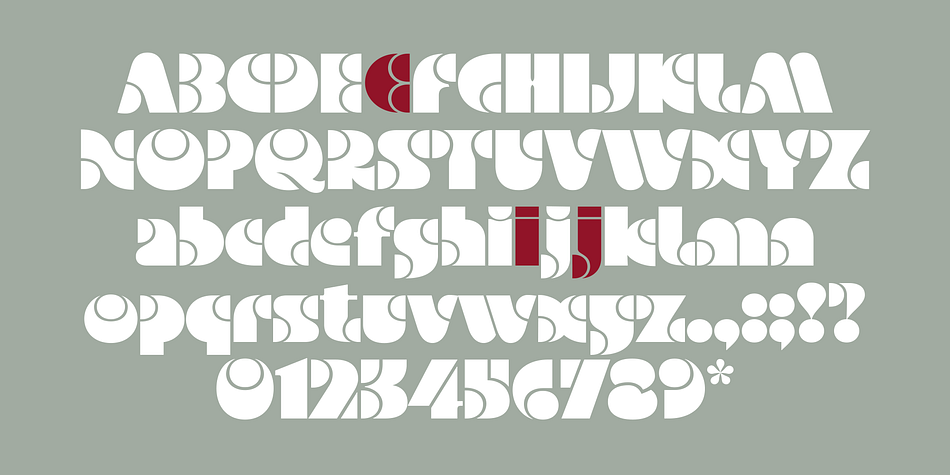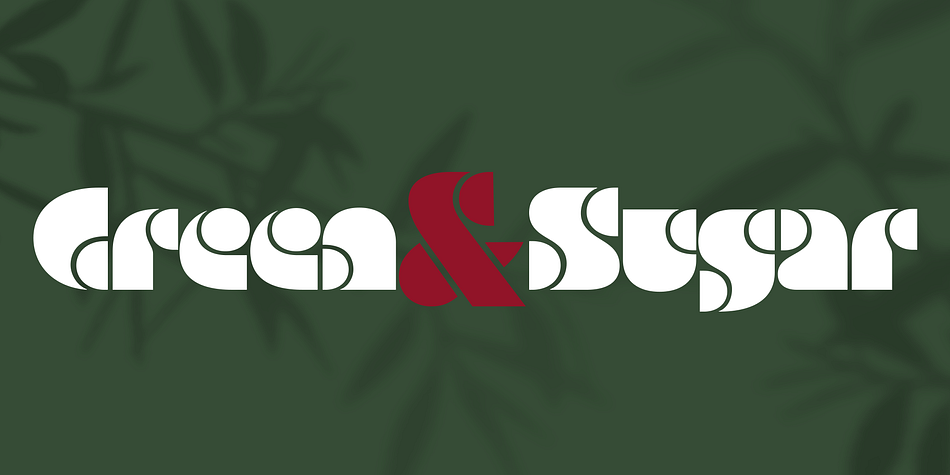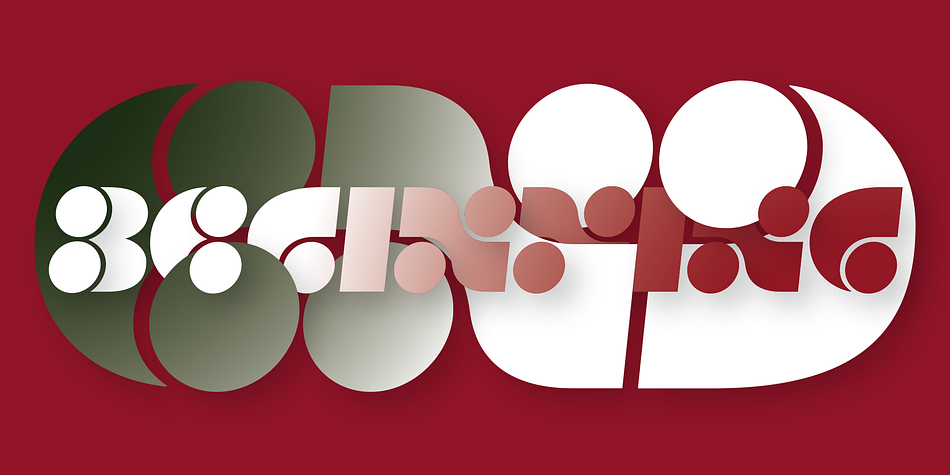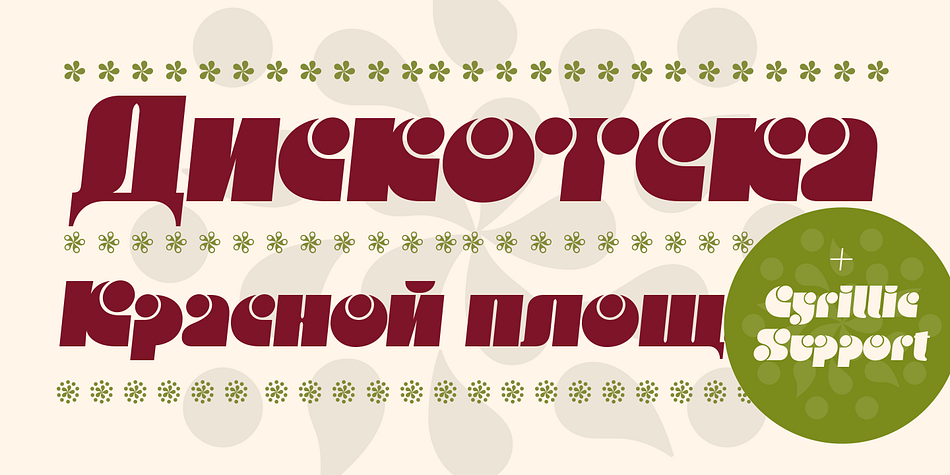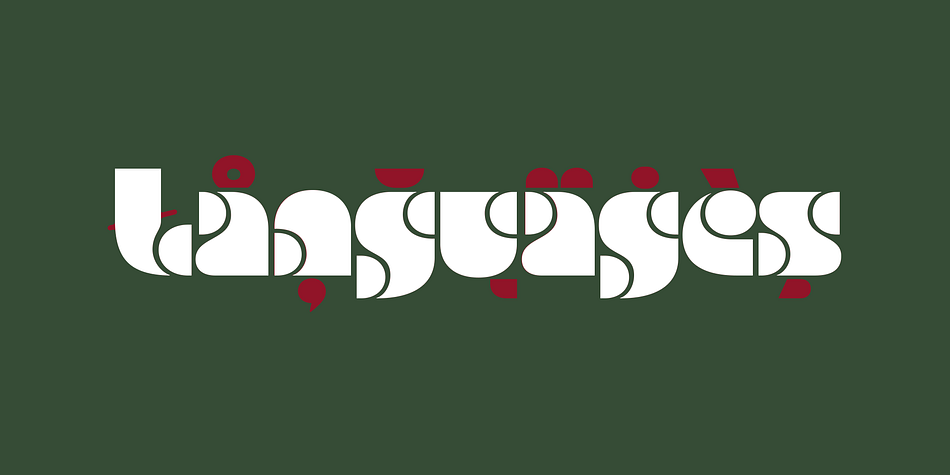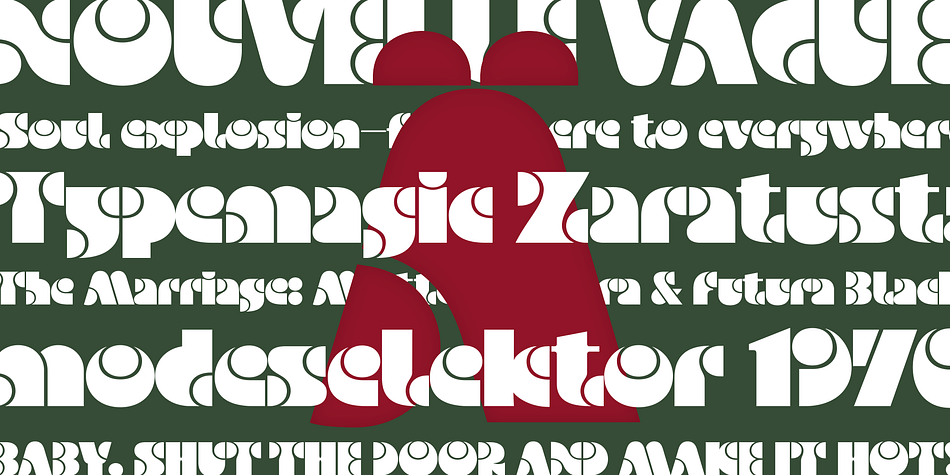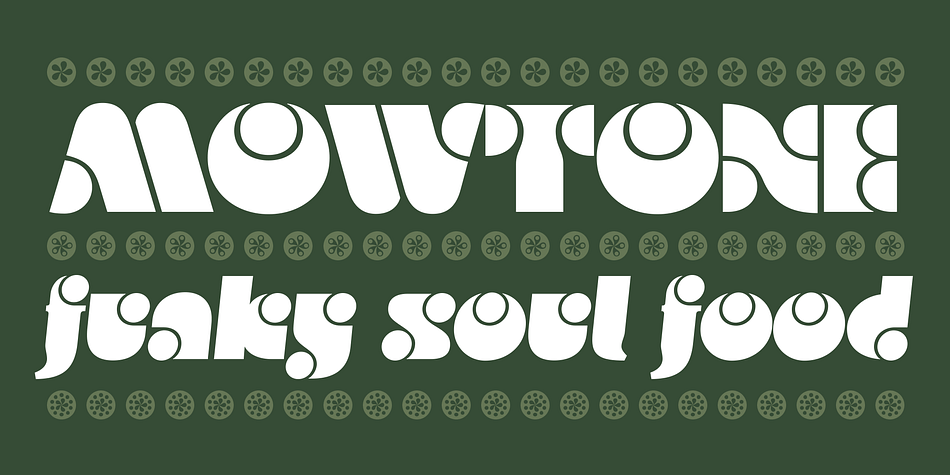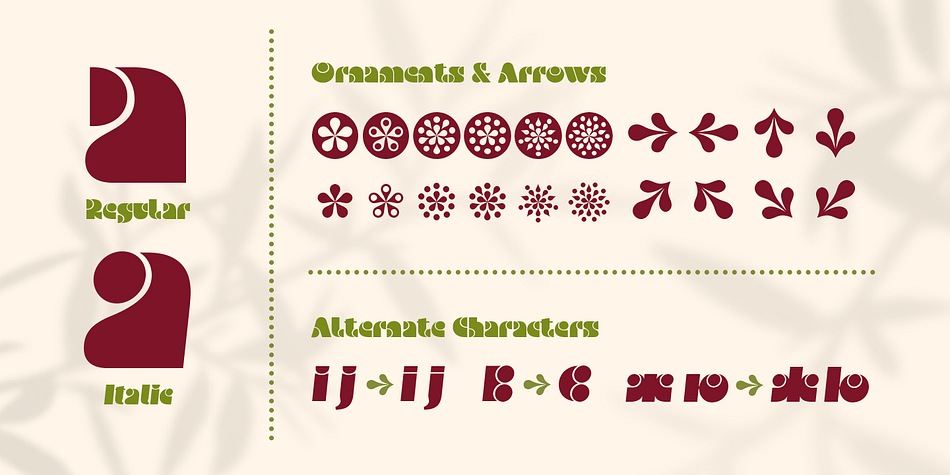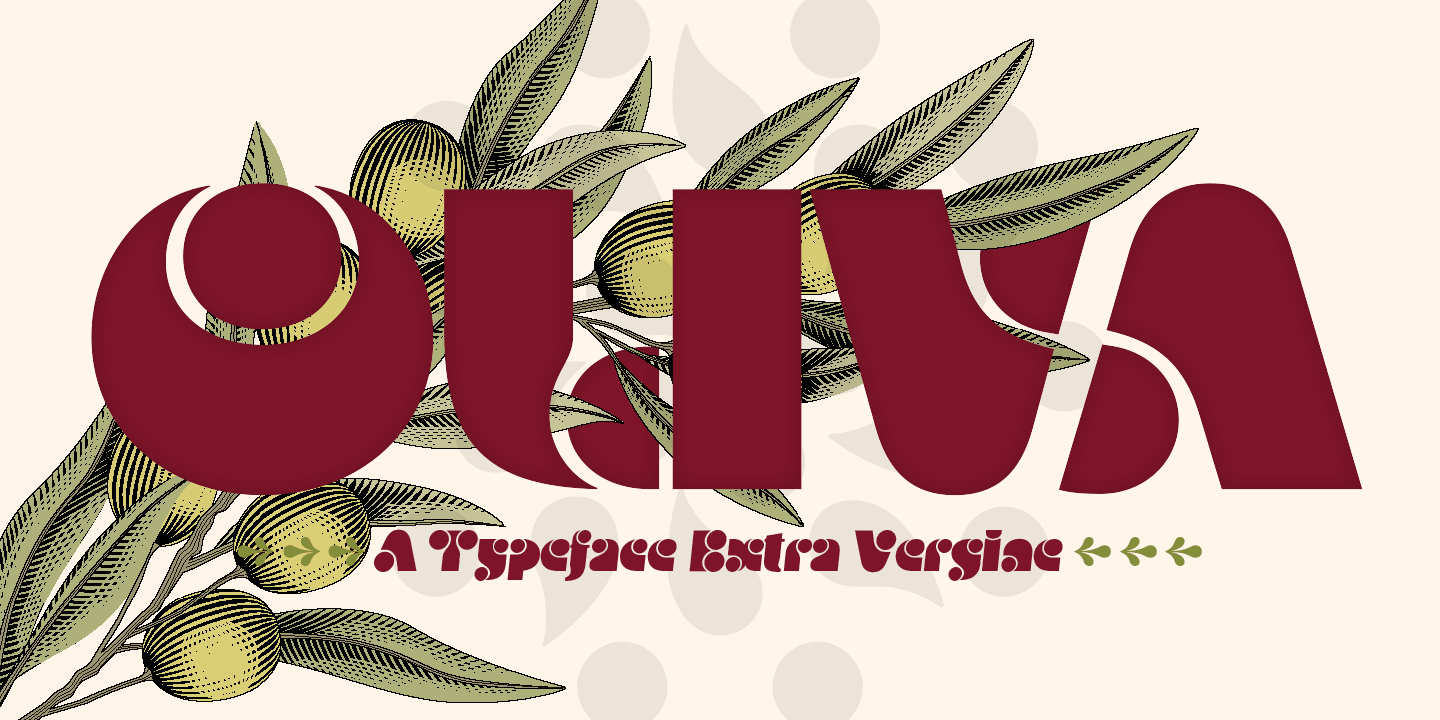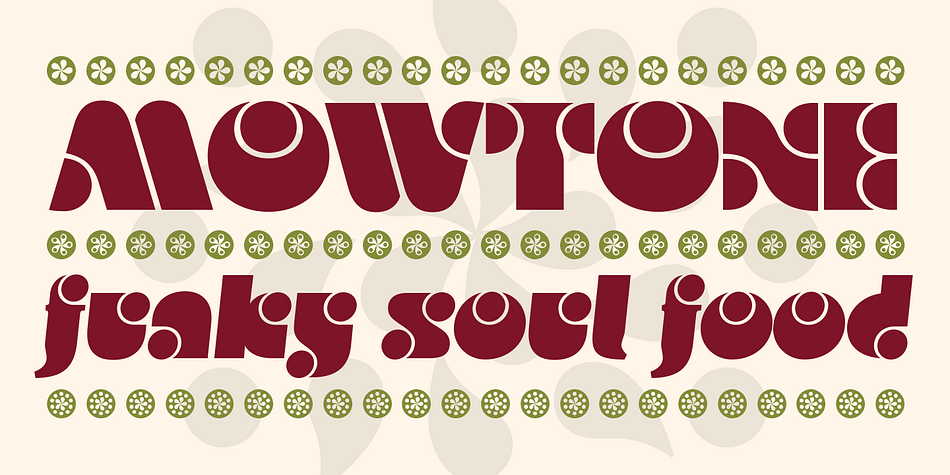
Oliva is a display and stencil font family. This typeface has two styles and was published by Viktor Nübel.
Oliva & Oliva Italic are two strong and funky display fonts. Influences came from typefaces like Futura Black by Paul Renner and Motter Ombra by Othmar Motter, but also Stilla by François Boltana and Allegro by Hans Bohn lay on the desk. All these ingredients were mixed to a new and contemporary type experience and packed in proper OpenType files
Oliva & Oliva Italic are OpenType Pro, featuring full Western, Central European, Baltic, Turkish and also Cyrillic language support. They contain ligatures, superior numerals, and a stylish set of decorative ornaments and arrows.